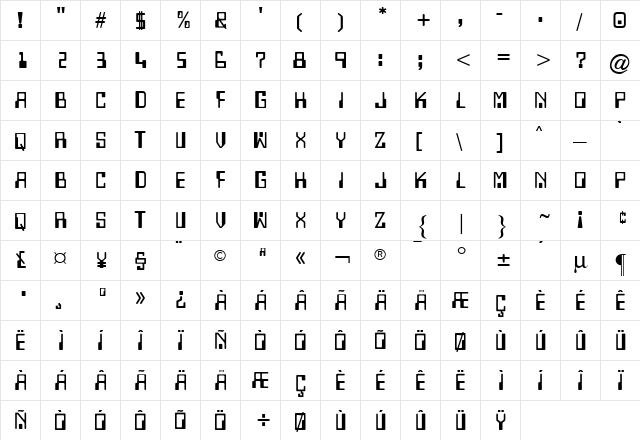
CgComputer Medium
Design Context for CgComputer Typeface
CgComputer takes a measured approach to typography — its balanced proportions and neutral character make it a reliable workhorse for both digital and print work.